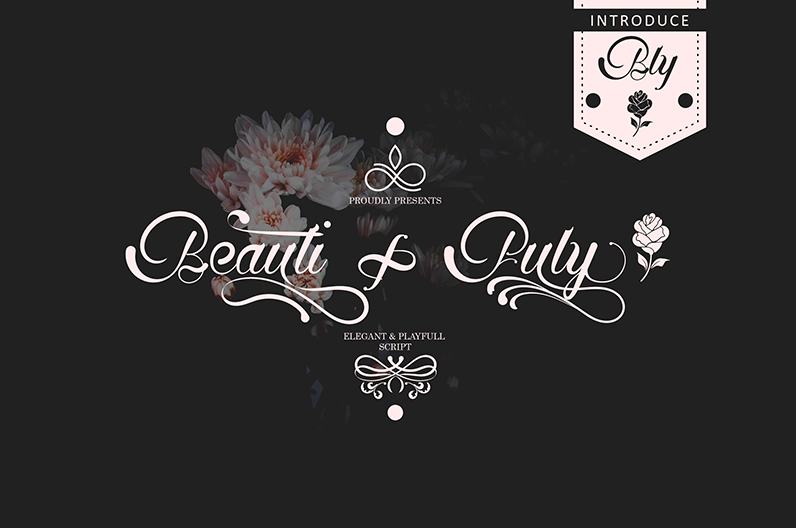
Font name: | Beautifuly |
Author: | Prast Art |
Note by Prast Art | |
Beautifuly is inspired by Indonesian Classic Jepara Sclupture Art with elegant, luxury, beauty and classy characteristics. This font is conceptualized seriously and deeply to make it a truly extraordinary font. So "Beautifuly" is very-very suitable for almost all projects such as: logotypes, branding, wedding invitations, jewerly labels, classy debit-credit card, romantic cards, classy drink labels, packaging, spelling of names and others wich need classy-extraordinary touch. IMPORTANT! - This is for PERSONAL USE ONLY. NO COMMERCIAL USE ALLOWED! - NO redistribute ALLOWED! - For COMMERCIAL USE purchase full version and commercial license, please contact us at: email: cs.prastart@gmail.com - go to here for MANUAL USE this font : https://www.youtube.com/channel/UCEG_v_1JducCfCnoi_4hxiA - Any donation are very appreciated. Paypal account for donation: https://paypal.me/prastart BEST REGARDS PRAST ART. |